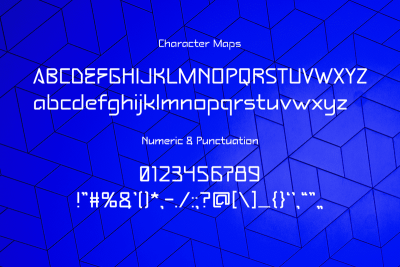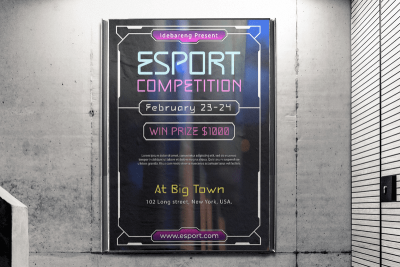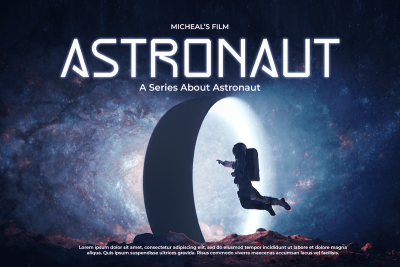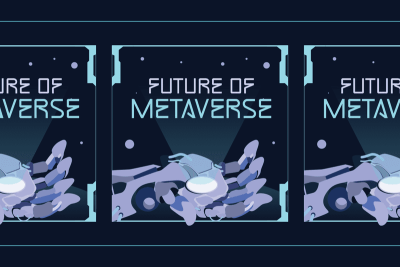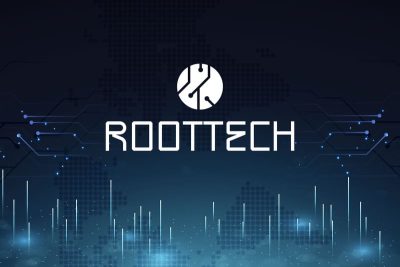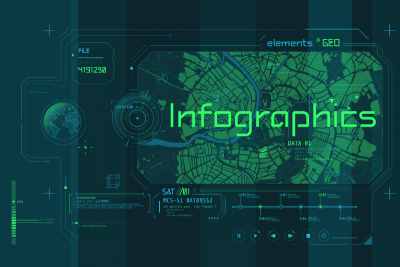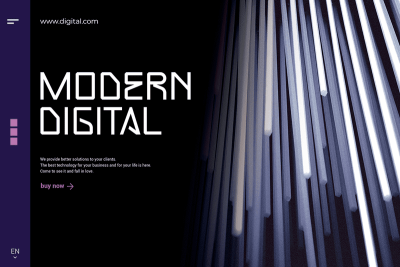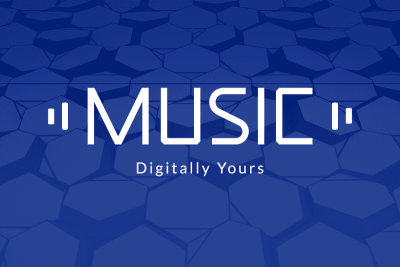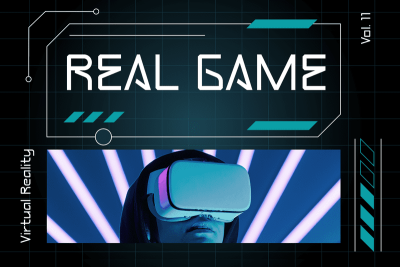
Futuristic Font Footure is the perfect choice for projects that demand a sleek, cutting-edge look. This modern typeface merges futuristic aesthetics with sharp, geometric forms, making it ideal for brands, creatives, and professionals in need of innovative visuals. Its bold letterforms are crafted to deliver impact while maintaining clarity, ensuring your designs remain both stylish and readable.
Whether you’re working on sci-fi visuals, technology branding, or modern advertising campaigns, Futuristic Font Footure provides a professional edge. The unique design elements in each character make it stand out on both digital and print media. This font delivers versatility, allowing you to explore endless creative possibilities while staying in line with contemporary design trends.
Perfect for Tech, Gaming, and Digital Projects
Footure draws inspiration from futuristic technology and minimalist design principles. Consequently, it is perfect for industries such as gaming, technology, and digital marketing. The sleek, structured letterforms make it ideal for titles, logos, website headers, and promotional materials that need a strong and modern impact.
Moreover, Footure thrives in creative projects where innovation is key. It works beautifully for futuristic posters, product packaging, digital banners, and even eSports visuals. Designers looking to deliver modernity and sophistication will appreciate Footureโs consistent flow and sharp precision.
In addition, its versatility allows you to experiment with bold compositions. Use this font to create standout headlines or captivating branding assets. No matter the medium, Footure ensures your message is delivered with confidence and originality.
Bring Your Vision to Life with Futuristic Font Footure
With Futuristic Font Footure, creating impactful visuals has never been easier. The fontโs geometric structure and clean lines ensure every design feels balanced and professional. Furthermore, it supports both minimalist layouts and complex compositions, offering designers endless opportunities to innovate.
For brands and professionals aiming to make a lasting impression, Footure is an invaluable asset. Its futuristic charm appeals to audiences seeking cutting-edge visuals while remaining versatile enough to suit diverse projects. Whether youโre designing for a tech startup, sci-fi project, or digital campaign, Footure helps you bring your boldest ideas to life.
In conclusion, this font combines form and function seamlessly. It elevates your designs, amplifies your message, and captures the attention of modern audiences. With Footure, your work will not only stand out but also define what the future of design looks like.